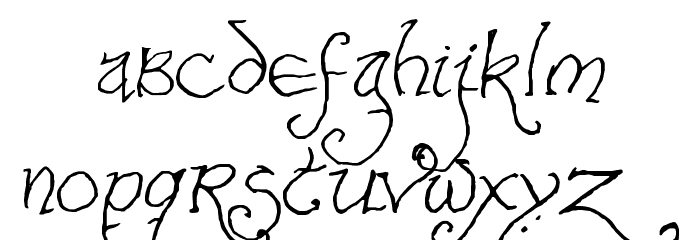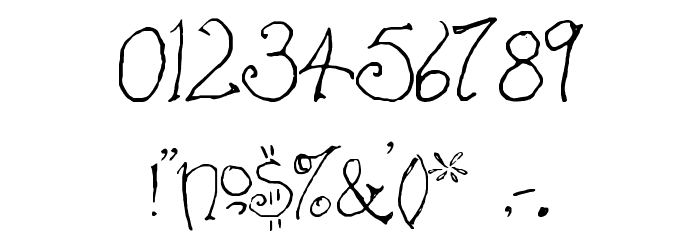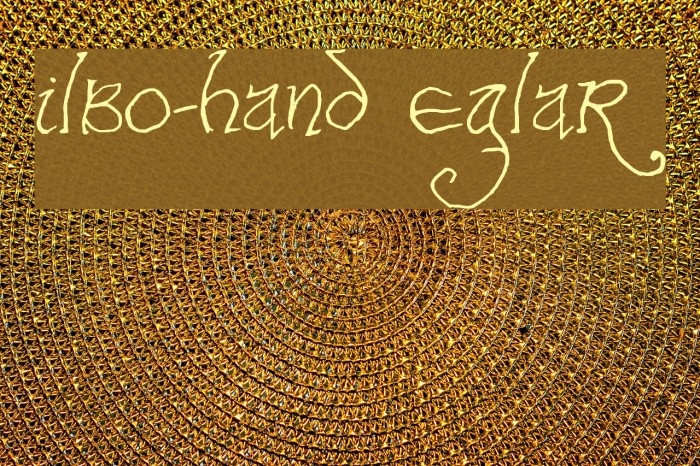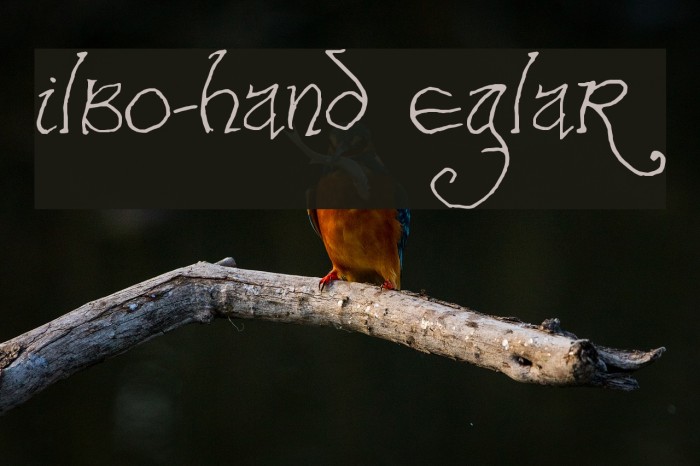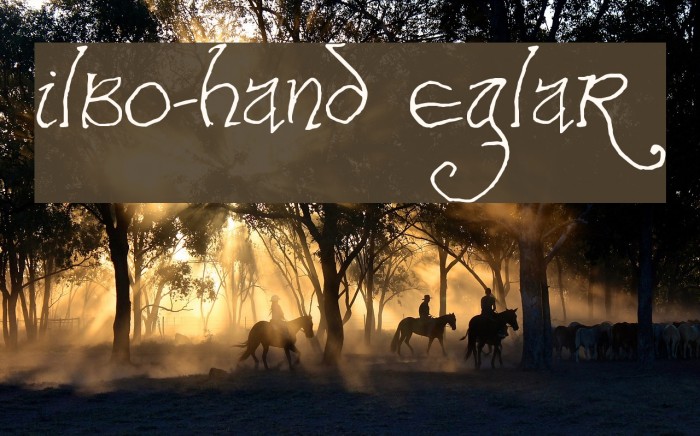
Bilbo-hand Regular Font
This font exudes a whimsical and artistic flair, characterized by its flowing, handwritten style. The letters are crafted with a playful elegance, featuring varying stroke widths that give it a dynamic and lively appearance. The uppercase letters are slightly more structured, while the lowercase letters exhibit a more fluid and cursive nature. The numbers and special characters maintain the same artistic quality, ensuring consistency across all elements. This font is perfect for projects that require a touch of creativity and personality, such as invitations, greeting cards, or artistic branding.
A whimsical, handwritten font with playful elegance and dynamic strokes.
- Proposed Projects: Ideal for invitations, greeting cards, artistic branding, and creative projects.
- Use Case: Headlines, Artistic projects, Invitations